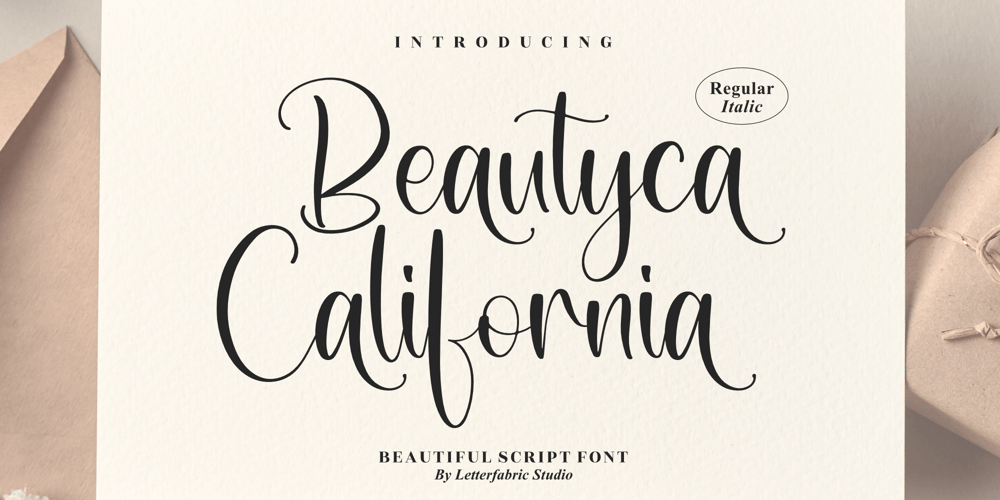
Beautyca California Font Family was designed by Heru Utama Putra and published by Letterena Studios. Beautyca California contains 2 styles and family package options. Beautyca California is a lovely and delicate script font that exudes elegance and class. This font was particularly crafted for those who need a beautiful and refreshing look to their designs. Beautyca California is PUA encoded which means you can access all of the amazing glyphs and ligatures with ease!